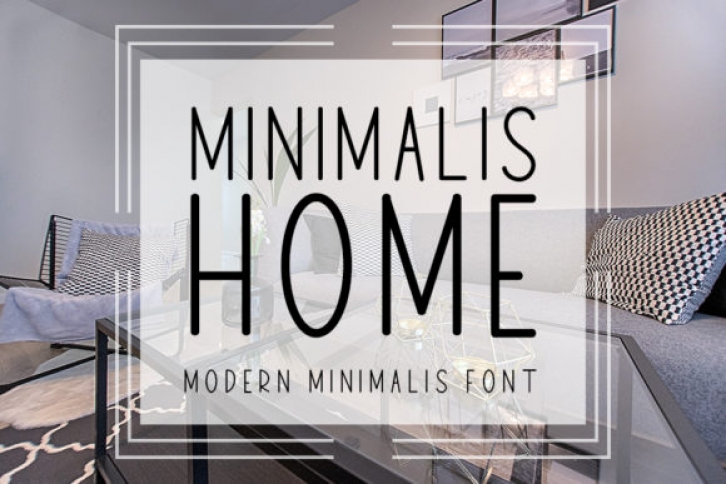
Minimalis Home is a simple and neat sans serif font. It can easily be matched to an incredibly large set of projects, so add it to your creative ideas and notice how it makes them stand out!